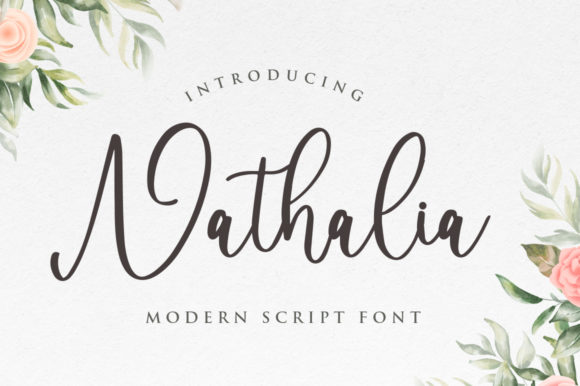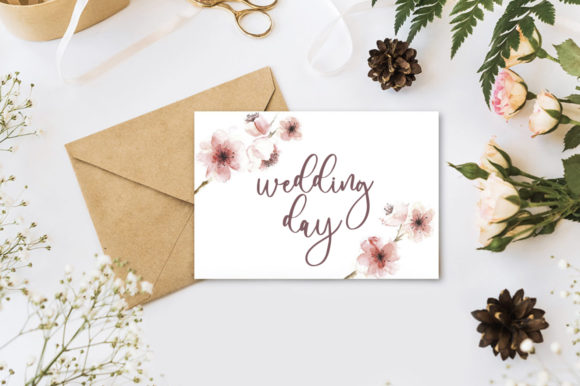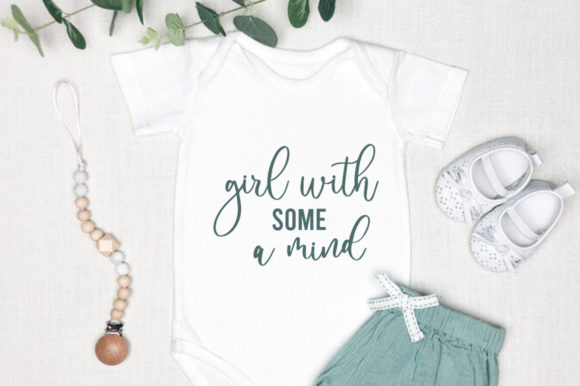
About Nathalia Font
Introducing Nathalia, a unique and elegant handwritten font that adds a touch of personalization and beauty to your designs. With its distinctive style and graceful letterforms, Nathalia looks beautiful on a variety of projects that require a personalized and sophisticated touch. Whether it’s wedding invitations, thank you cards, greeting cards, logos, or other design applications, Nathalia enhances the visual appeal with its unique charm.
Nathalia’s unique and elegant handwritten design sets it apart as a font that exudes individuality and grace. Each letter carries its own personality, reflecting the natural flow of handwriting. This distinctive style adds a touch of personalization and uniqueness to your designs, capturing attention and leaving a lasting impression.
The versatility of Nathalia allows it to be applied to various design projects that require a personalized style. Its elegance and beauty make it well-suited for wedding invitations, where it adds a sense of sophistication and romance. Nathalia’s refined letterforms create a visually captivating appearance that sets the tone for a special occasion.
Thank you cards and greeting cards are elevated with the inclusion of Nathalia. Its unique and elegant handwritten style adds a heartfelt touch, making your messages feel personalized and sincere. Nathalia enhances the emotional connection with the recipient, creating a memorable and meaningful experience.
In addition to invitations and cards, Nathalia can be used in various other design contexts. Whether it’s logos, branding materials, or any creative project that requires a touch of elegance and personalization, Nathalia brings a unique and sophisticated element to the composition.
Nathalia’s beauty and elegance shine through in its application to different design elements. Its graceful letterforms create a harmonious and visually pleasing composition, enhancing the overall aesthetics. Whether used as a headline, body text, or decorative element, Nathalia adds a touch of refinement that captivates viewers.
In summary, Nathalia is a unique and elegant handwritten font that enhances the beauty and personalization of your designs. Its versatility makes it suitable for various projects, including wedding invitations, thank you cards, greeting cards, logos, and more. Embrace Nathalia and let its distinctive style and grace elevate the visual appeal of your designs, creating a lasting impression on your audience.